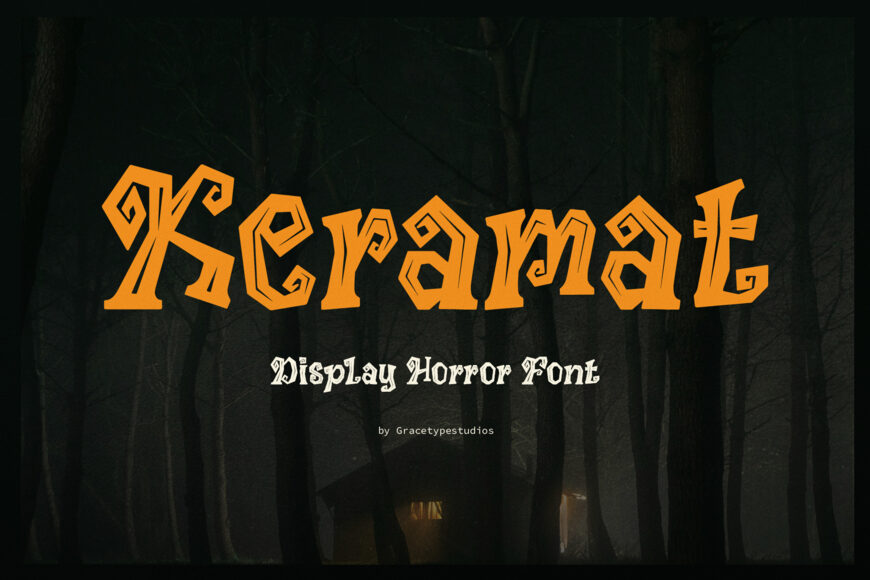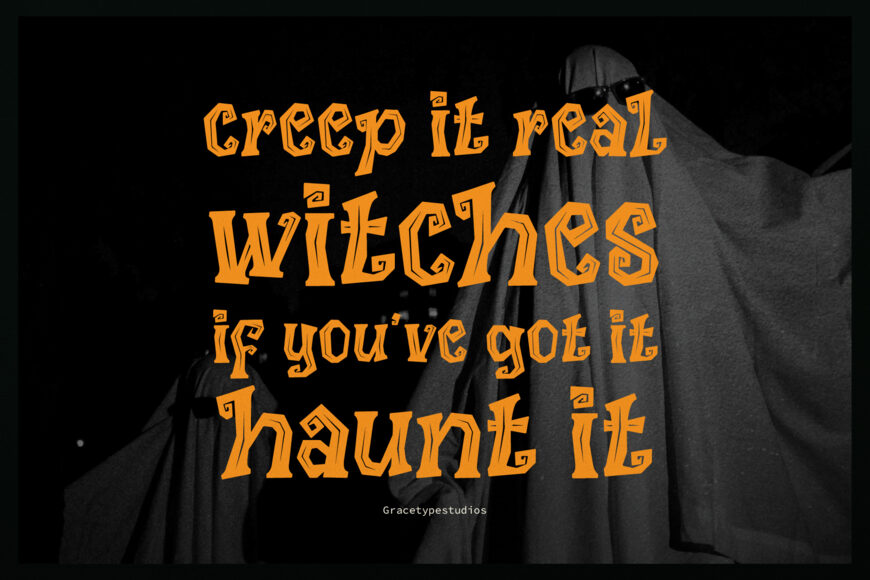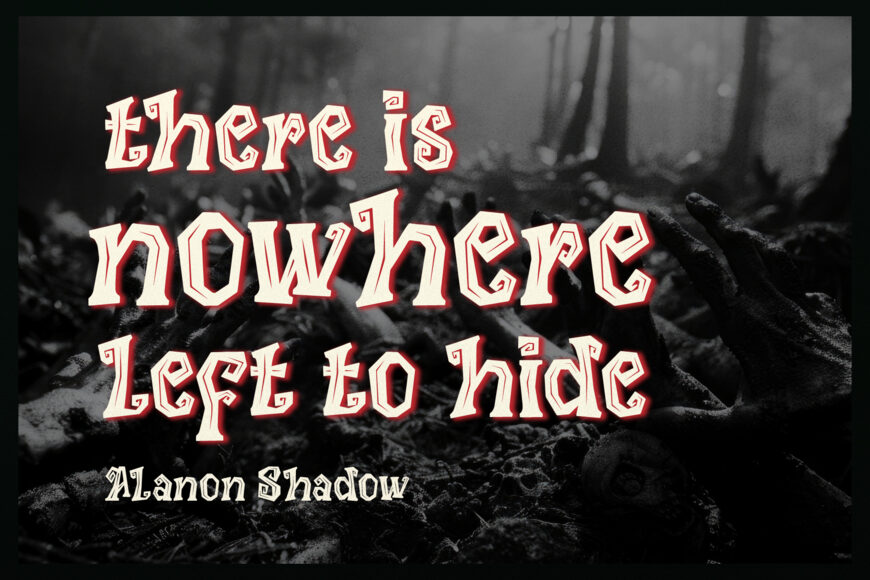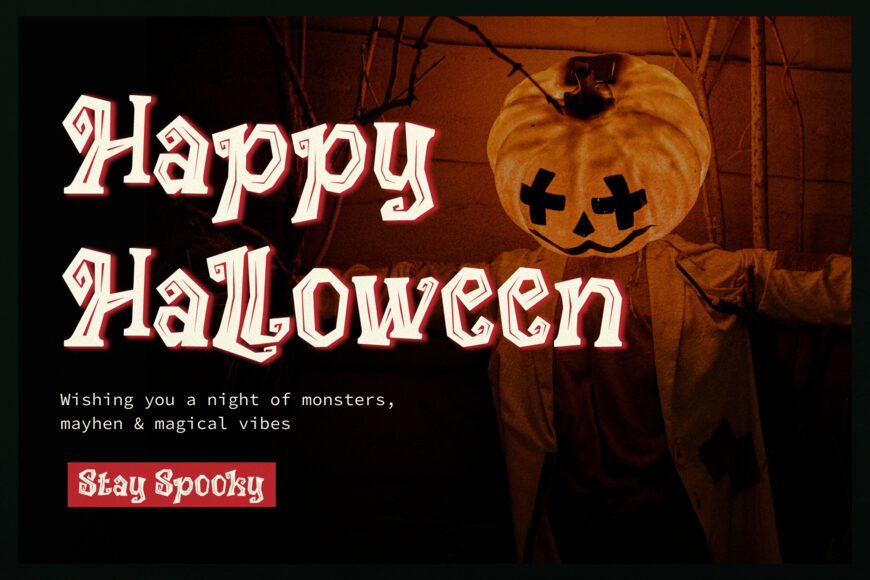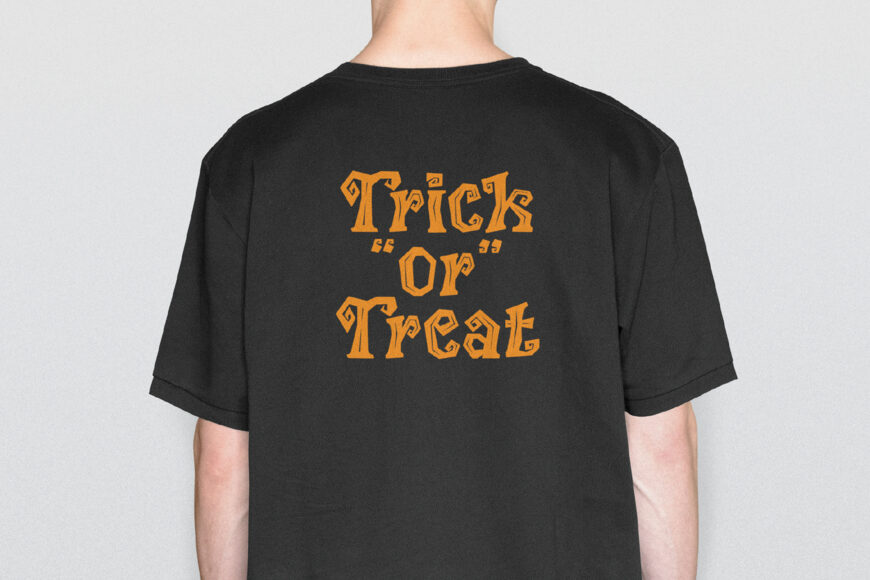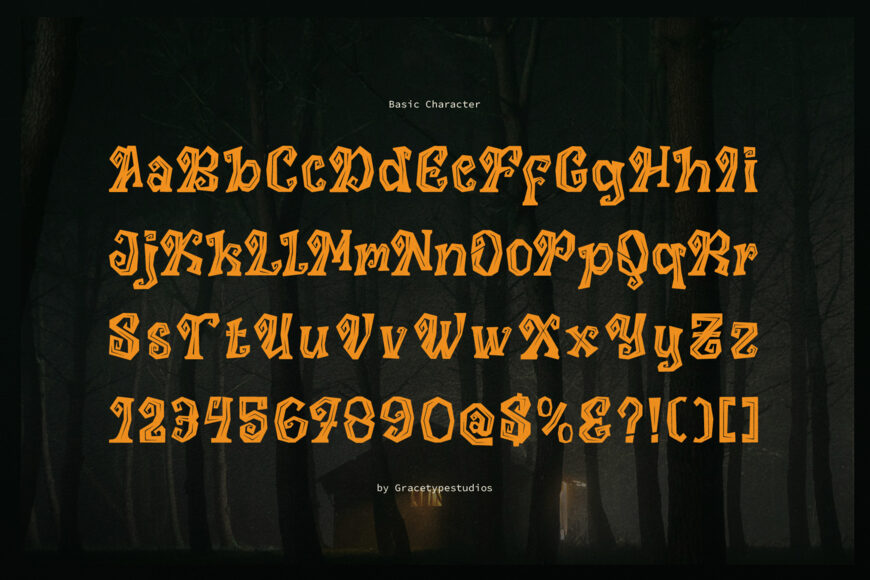
Keramat Font
Summon creepy vibes, spooky Halloween energy, and mysterious dark magic into your designs with KERAMAT! This chilling display horror font features jagged blackletter-inspired forms, sharp angular cuts, and distorted inner inline details that radiate pure eerie intrigue.
Perfect for Halloween party invitations, horror movie titles, dark fantasy book covers, thriller game UI, gothic apparel prints, spooktacular sticker packs, and custom Cricut or Silhouette vinyl craft projects, KERAMAT brings a hauntedly unforgettable edge to every headline!